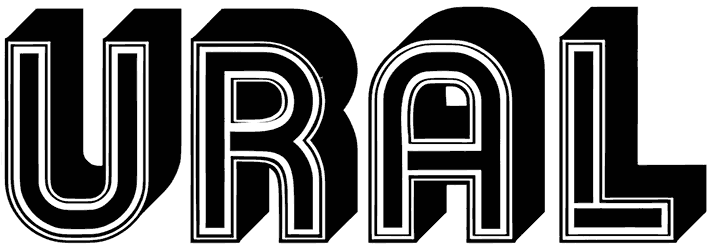
Ural Font
Everything you expect from a font is gathered in Ural. This inline font has a shadow behind the letters, which makes its footprint on the paper bolder.
So, it’s used where there’s a need to show off the strength of a brand or when you want to focus a lot of design weight on one point. This 3D font without small letters and numbers, can always appear powerful and work well for designing book covers, technology posters, and science fiction movies.